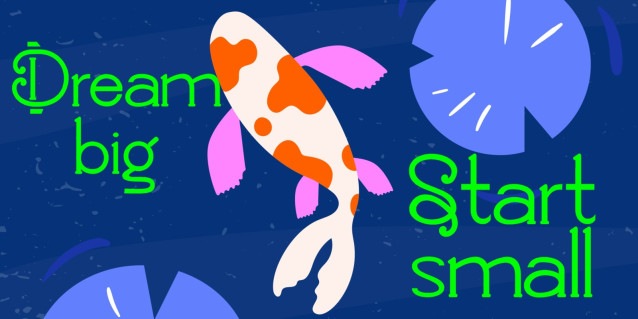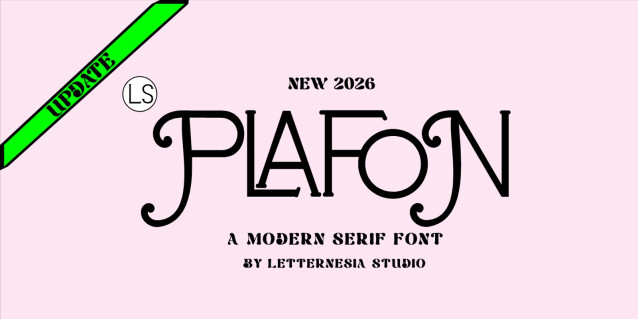
Lsplafon Font
Lsplafon Font is a bold and modern display typeface designed to deliver strength, clarity, and professional character. Built with solid letterforms and balanced proportions, this font projects confidence and reliability—making it perfect for construction, interior design, and building material branding. Its clean yet distinctive structure allows LSPLAFON to stand out in large-scale applications while maintaining excellent readability. The strong visual presence makes it ideal for headlines, logos, signage, packaging, and promotional materials.